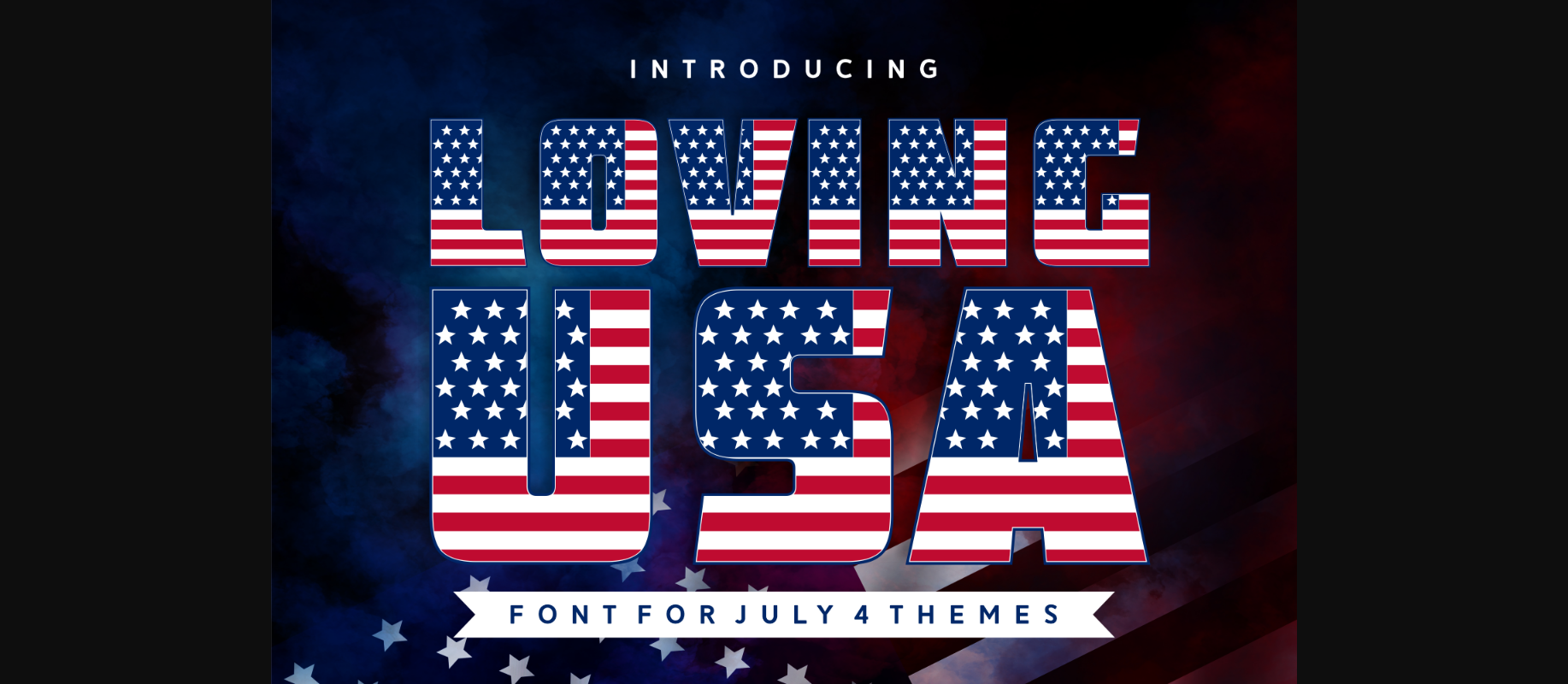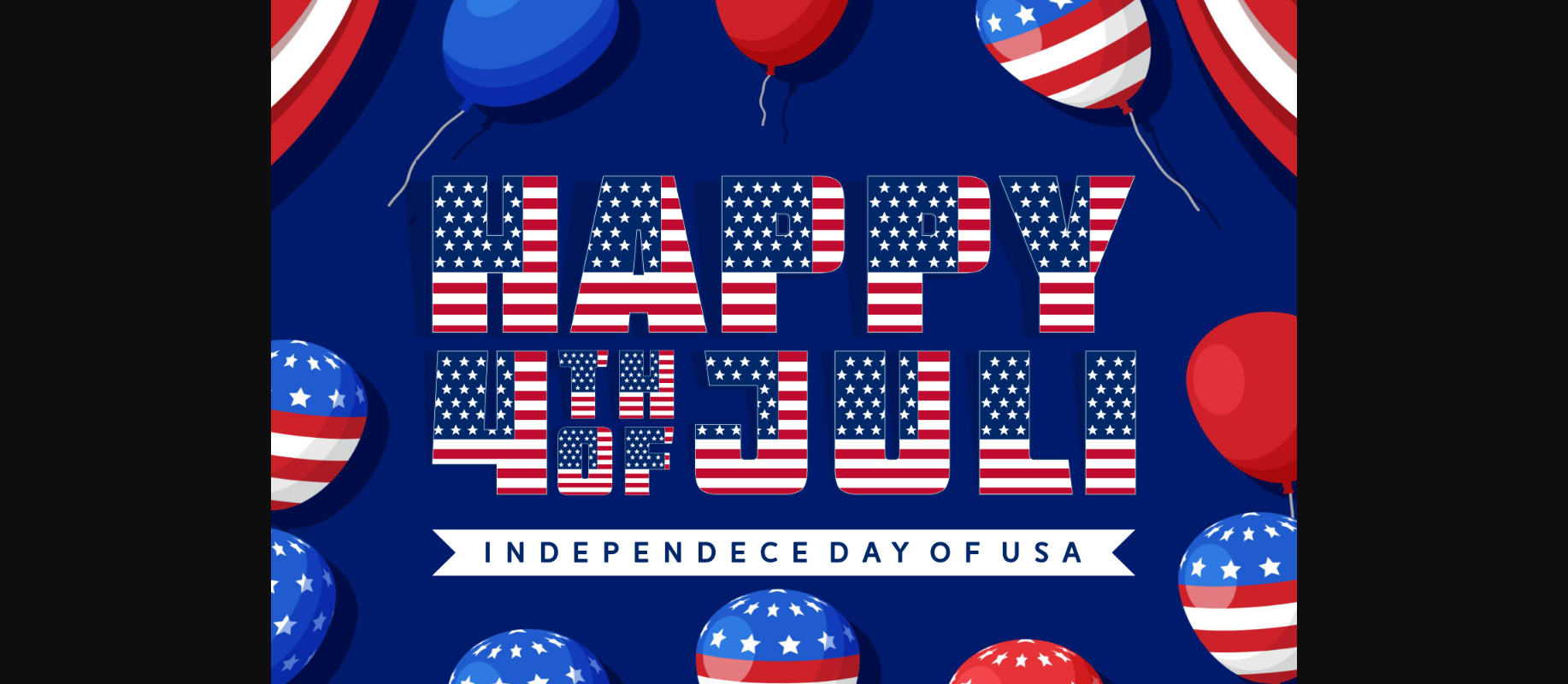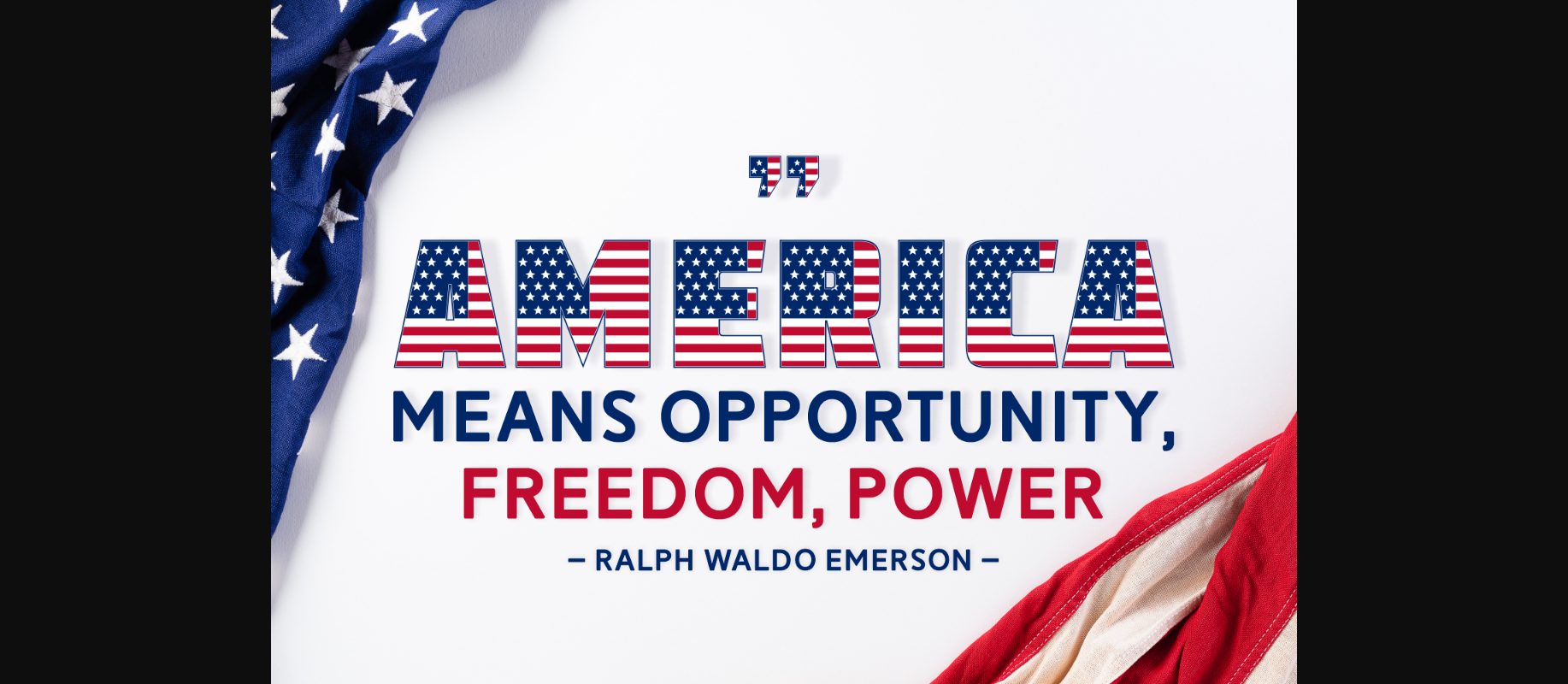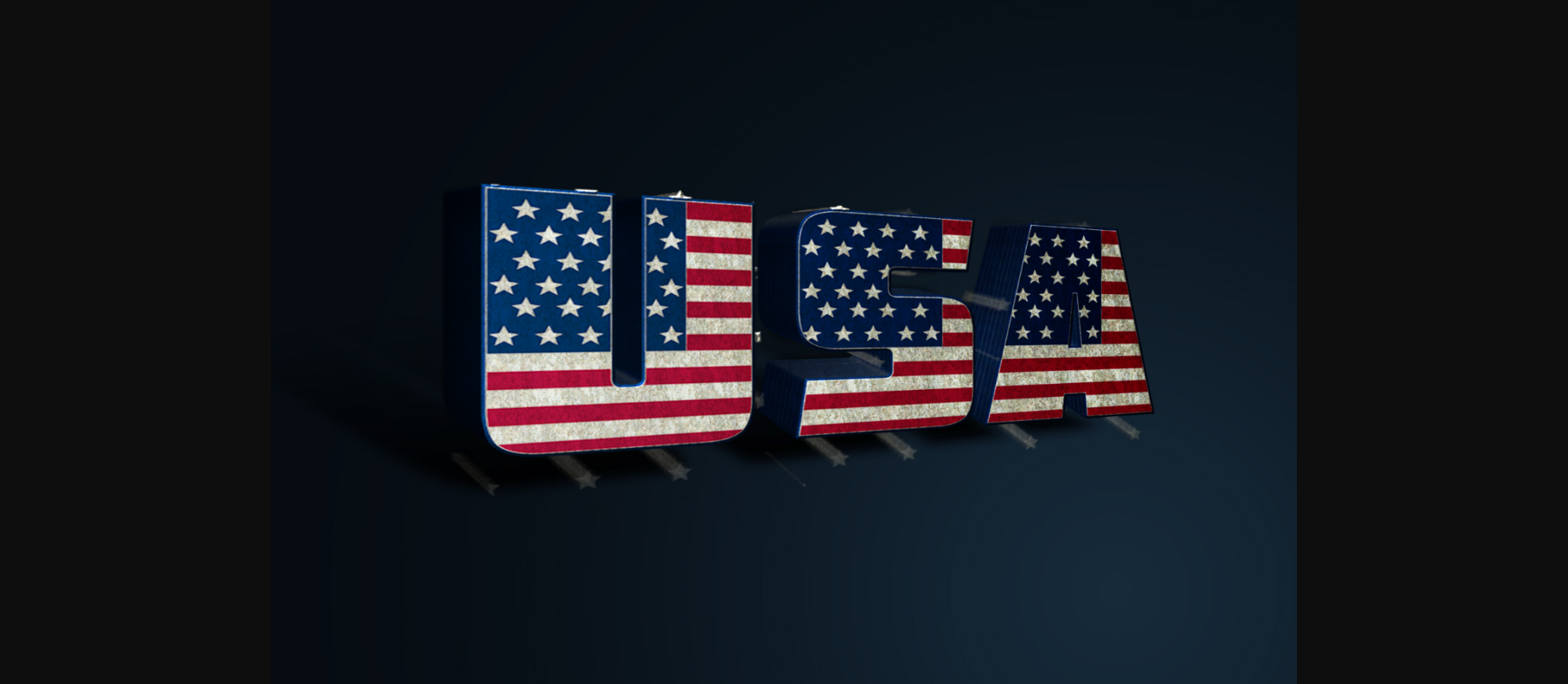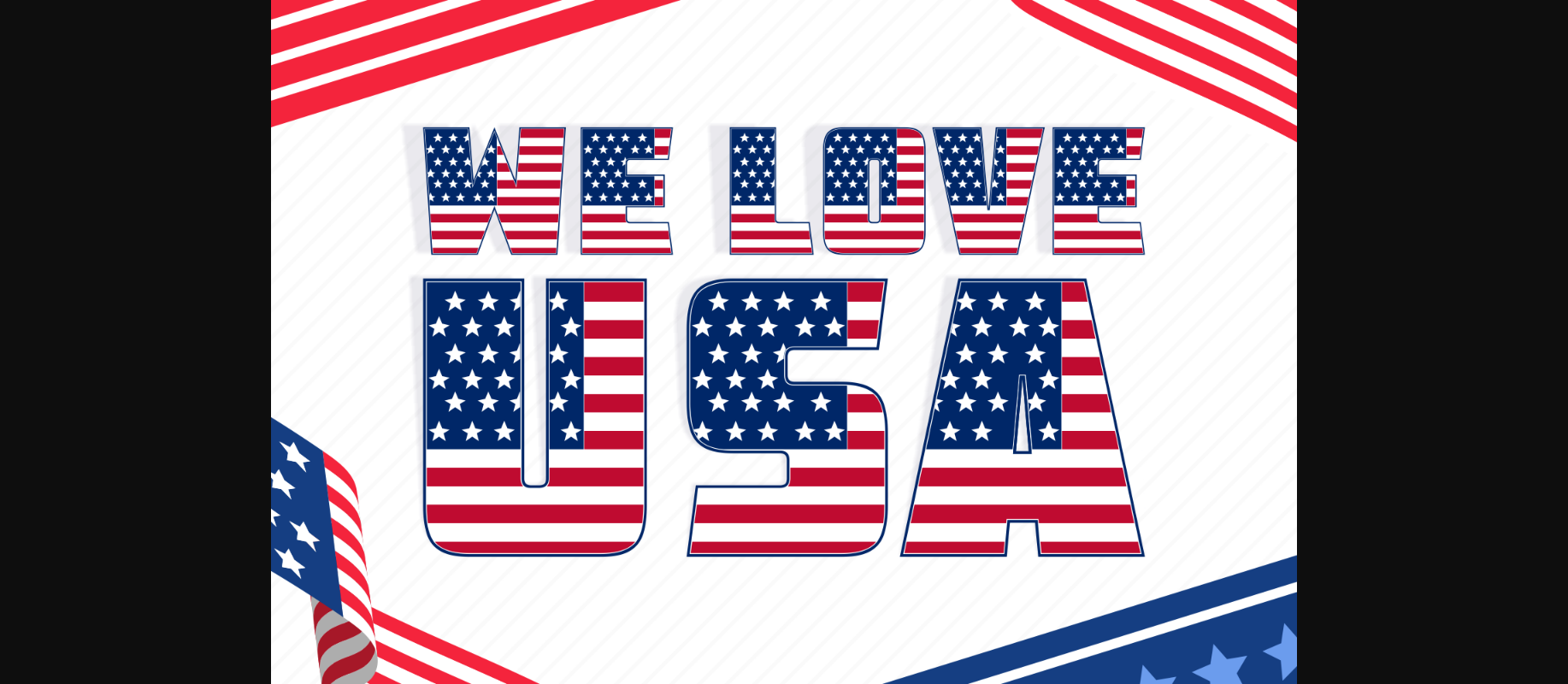
Loving Usa Font
About Loving Usa Font
Loving USA font features an American flag motif that incorporates the iconic stars and stripes into the design of each letter. It captures the essence of patriotism, freedom, and unity. The font’s letters are bold with the stars and stripes carefully integrated.
Its distinctive design serves as a visual reminder of the ideals and values that the American flag represents, making it an excellent choice for adding a touch of national pride and identity to various design projects.
This decorative font is perfect for projects that celebrate American culture, history, or events such as Independence Day, Veterans Day, or Memorial Day. It can be used to create impactful headlines, banners, or signage, infusing a sense of national pride and identity into any design.